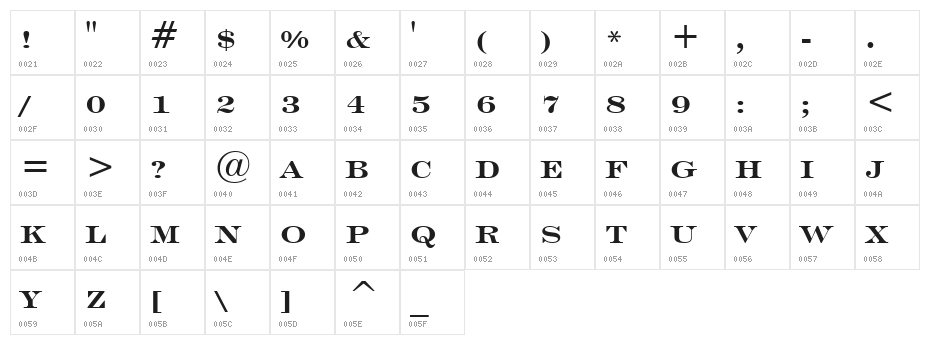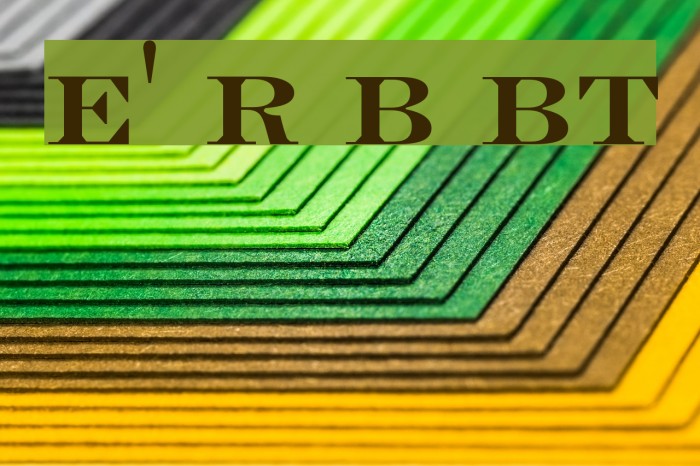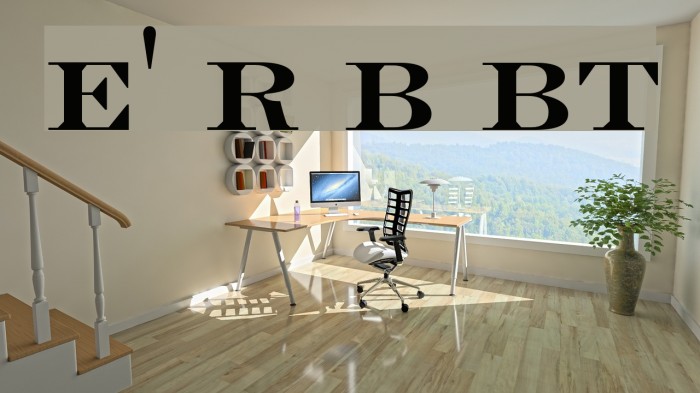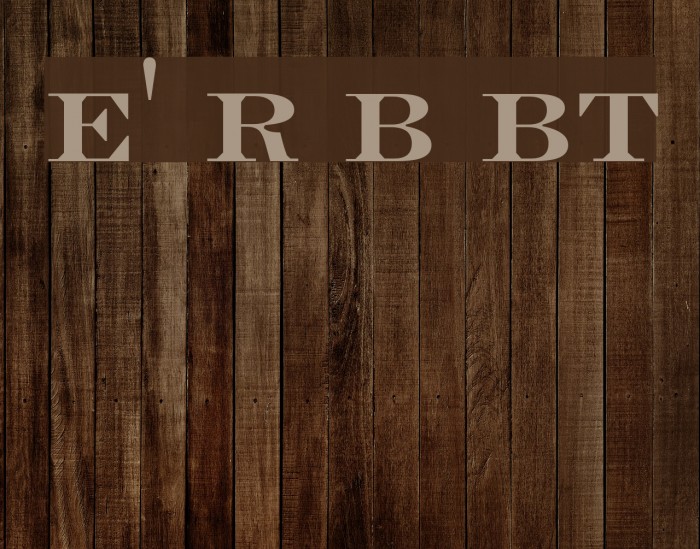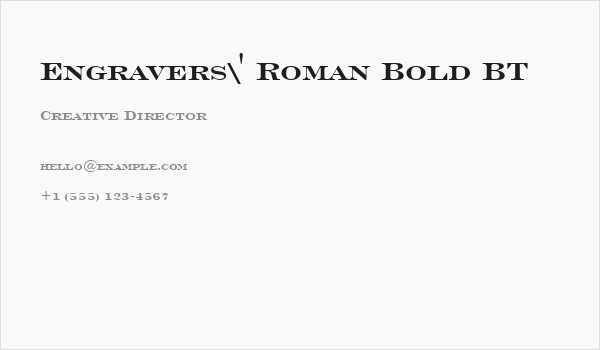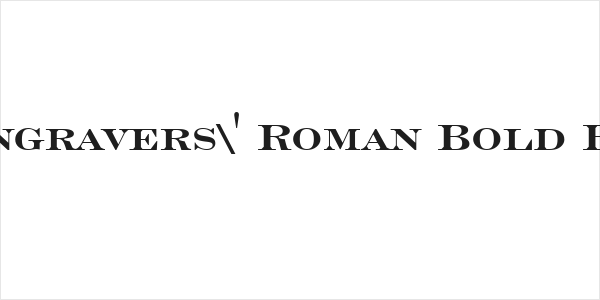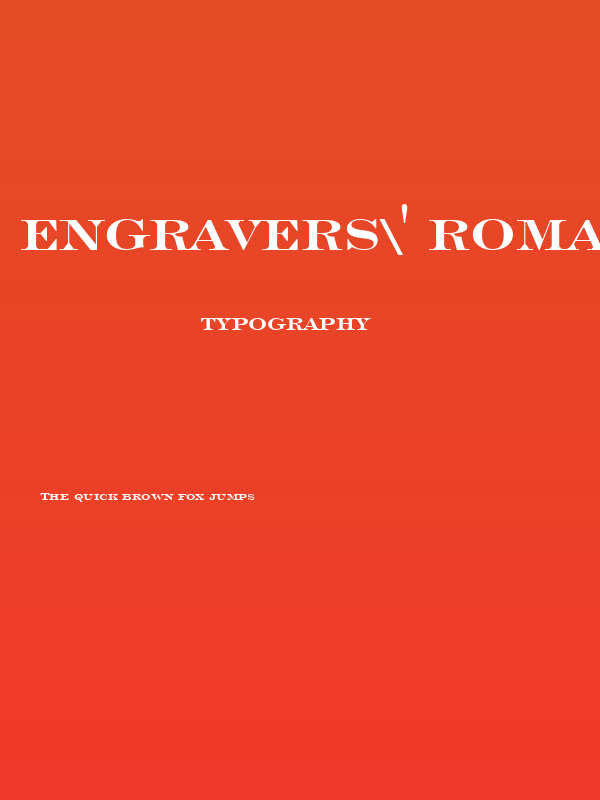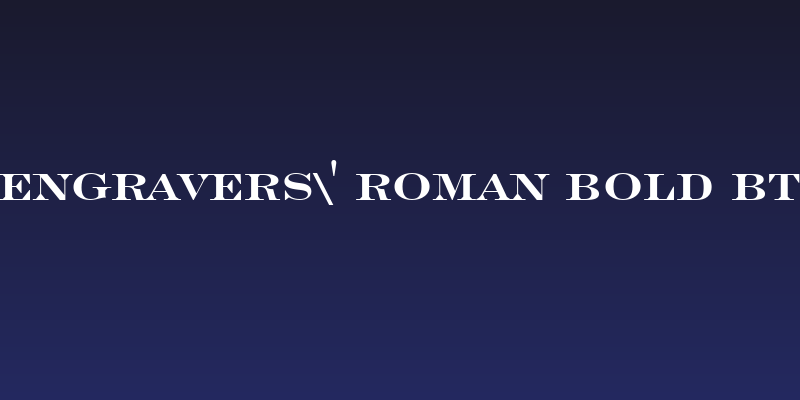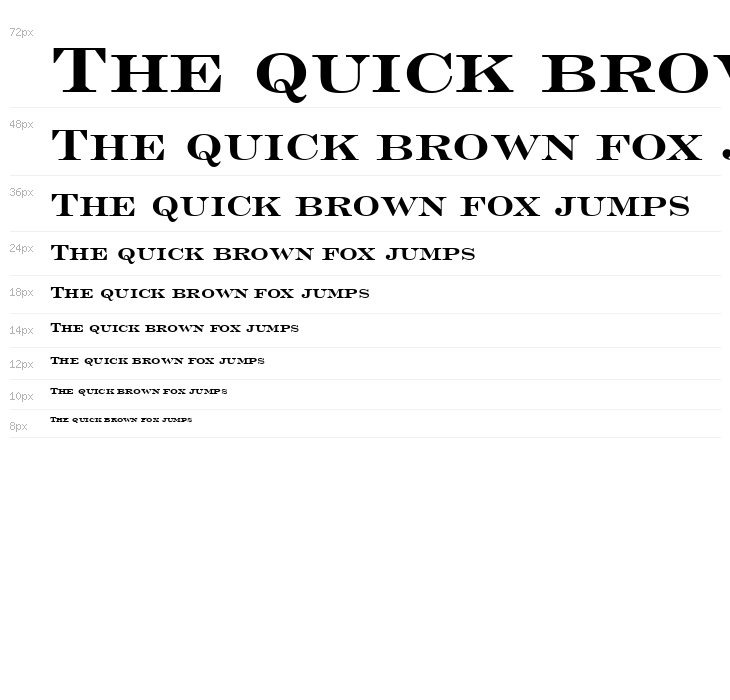
Engravers' Roman Bold BT Font
Engravers' Roman Bold BT Description
This font exudes a classic and sophisticated style, characterized by its bold and prominent serifs. The uppercase letters are well-defined with a strong presence, making them ideal for formal and authoritative text. The numerals are equally bold, maintaining consistency across the typeface. Special characters are elegantly crafted, adding to the font's versatility. The overall design is reminiscent of traditional engraving styles, offering a timeless appeal that is both elegant and impactful.
| Use Case | Headlines, Logos, Formal documents |
| Proposed Projects | Ideal for formal invitations, certificates, book covers, and branding that requires a touch of elegance and tradition. |